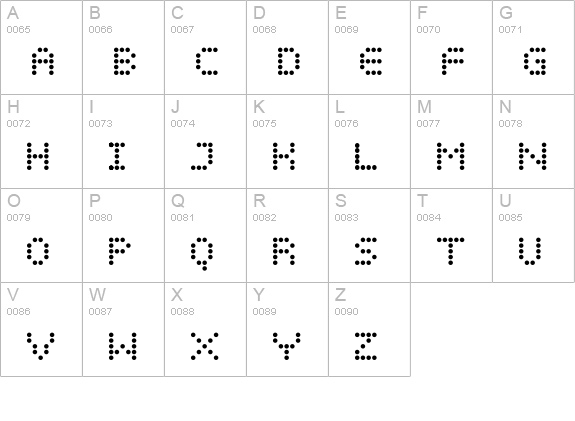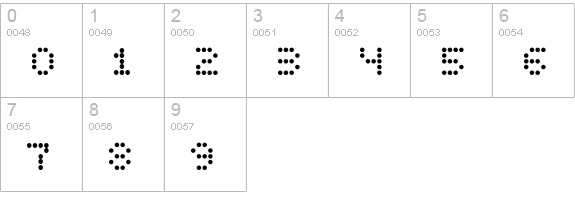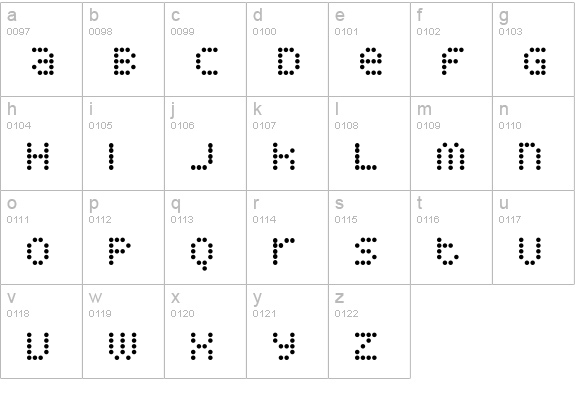
Display Dots font is a captivating and modern typeface designed to bring a unique touch to your projects. This font features a playful and eye-catching design with dots incorporated into each character, adding a sense of fun and creativity to your text. Whether you're working on posters, branding, or any other design project, Display Dots font is sure to make a bold statement. The best part is that Display Dots font is completely free to download at FontsMarket.com. This means you can easily add this stylish font to your collection without any cost. Don't miss out on the opportunity to enhance your designs with the striking Display Dots font - download it today and let your creativity shine!